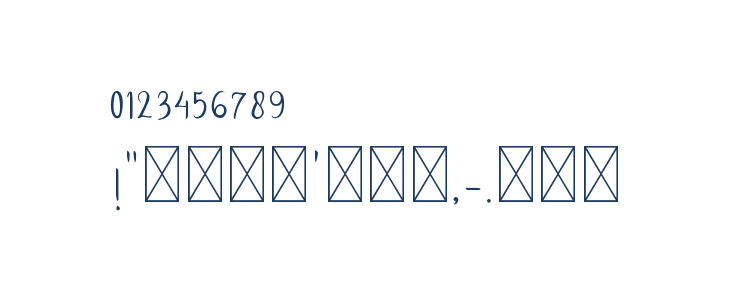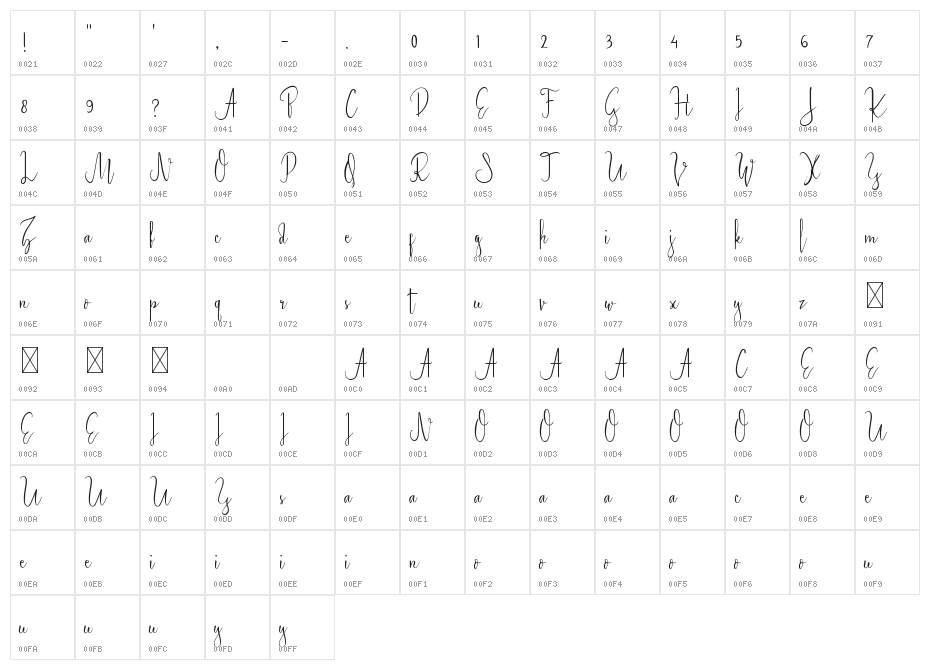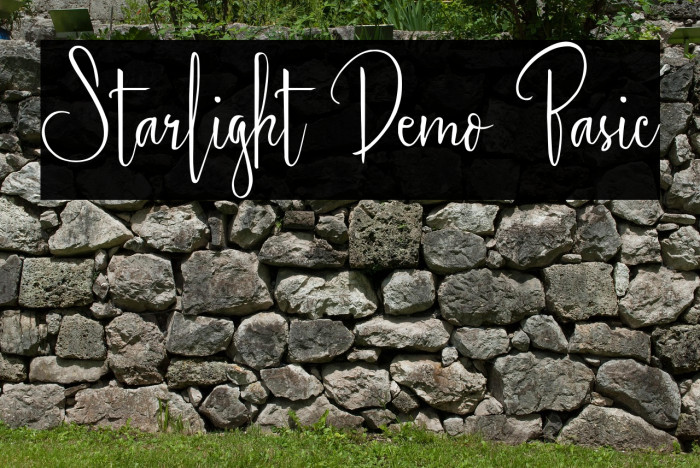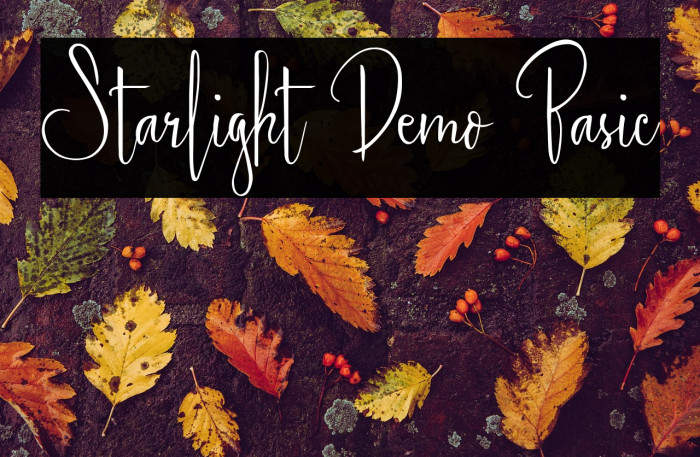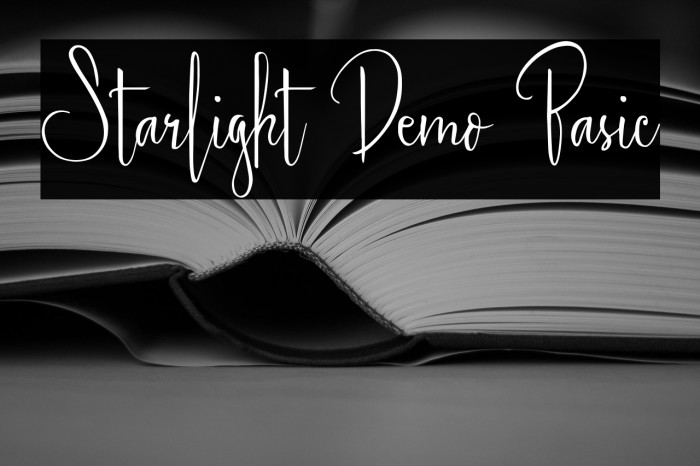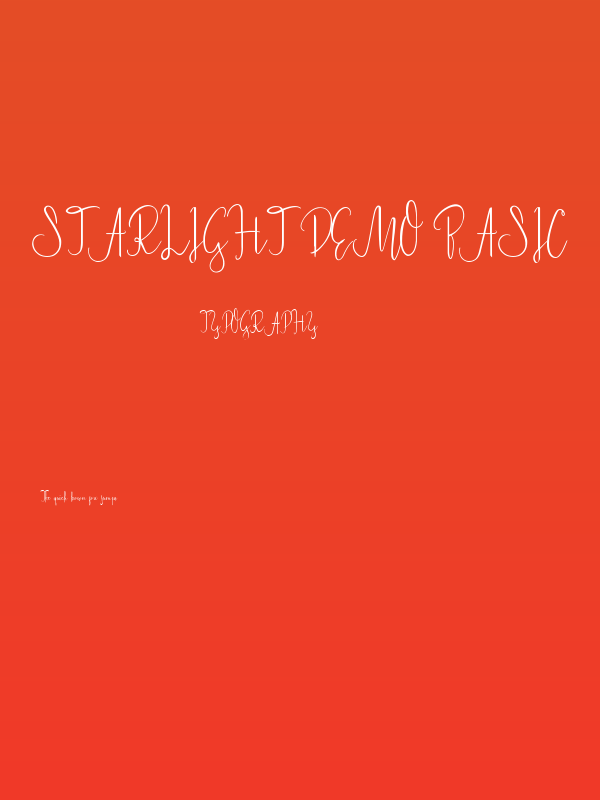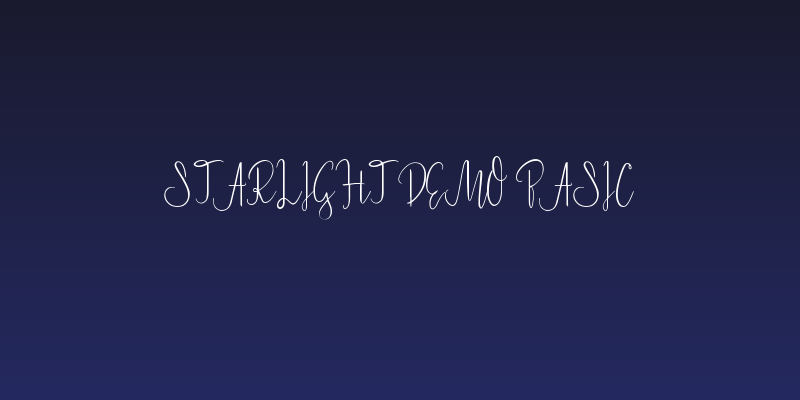
Starlight Demo Basic Font
Starlight Demo Basic Description
This font features an elegant and flowing script style, characterized by its graceful curves and loops. The uppercase letters are particularly ornate, with sweeping lines that give a sense of movement and fluidity. The lowercase letters maintain a consistent style, with a slightly more restrained design that complements the uppercase. The numerals are clear and legible, maintaining the overall aesthetic of the font. Special characters are included, matching the decorative style. This font is ideal for projects that require a touch of sophistication and elegance.
| Proposed Projects | Ideal for wedding invitations, greeting cards, branding, and elegant logo designs. |